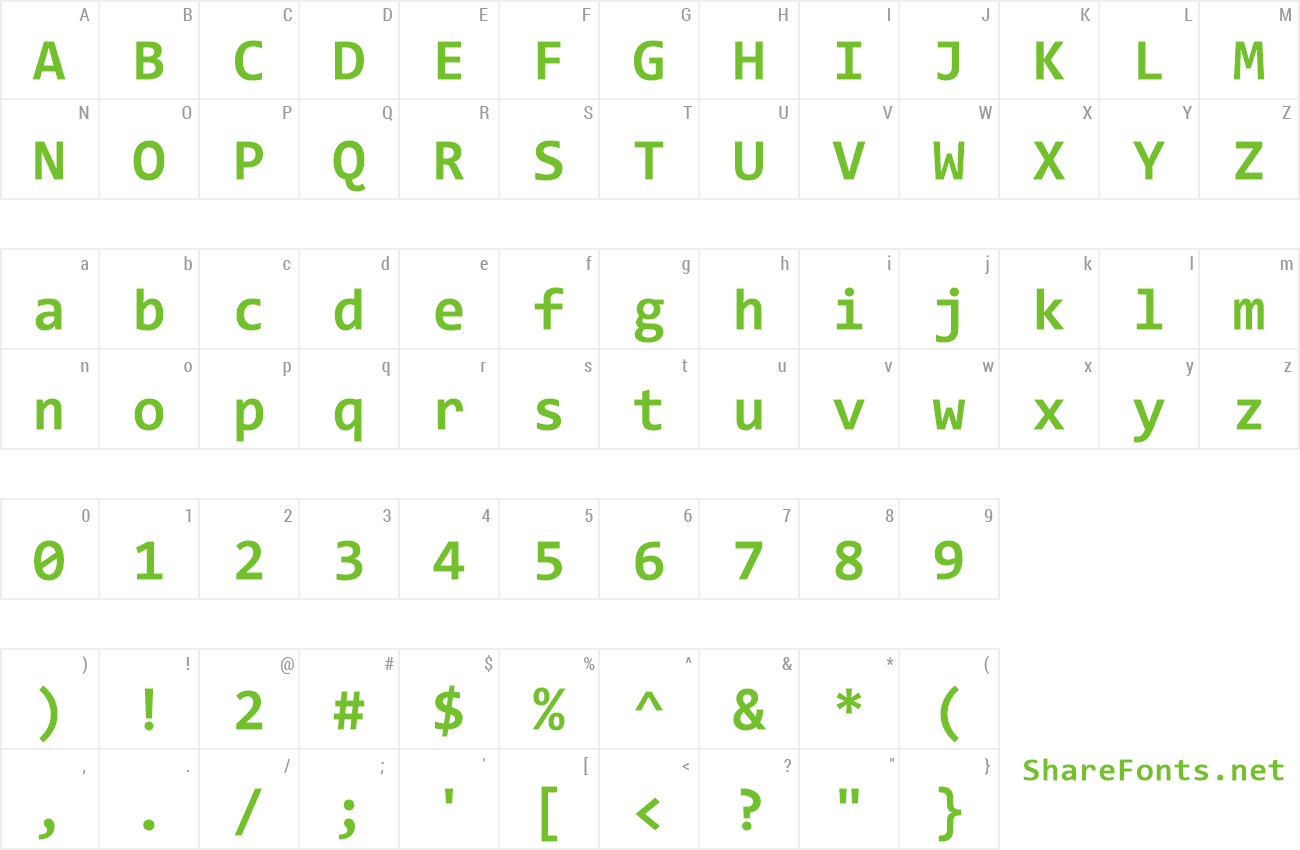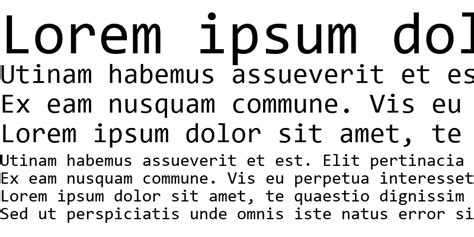
Consolas Font Download - Consolas is aimed for use in programming environments and other circumstances where a monospaced font is specified. It is a part of the clear type font collection, a suite of fonts that take advantage of. Web consolas font free. It is a part of the clear type font collection, a suite of fonts that take advantage of. Web consolas is aimed for use in programming environments and other circumstances where a monospaced font is specified. Web consolas is a monospaced typeface, designed by luc (as) de groot. All characters have the same width, like old. This is a monospaced sans serif font that was designed and released by luc (as) de. Web consolas is a monospaced typeface, designed by luc (as) de groot.
Web consolas is a monospaced typeface, designed by luc (as) de groot. This is a monospaced sans serif font that was designed and released by luc (as) de. It is a part of the clear type font collection, a suite of fonts that take advantage of. Consolas is aimed for use in programming environments and other circumstances where a monospaced font is specified. It is a part of the clear type font collection, a suite of fonts that take advantage of. All characters have the same width, like old. Web consolas font free. Web consolas is a monospaced typeface, designed by luc (as) de groot. Web consolas is aimed for use in programming environments and other circumstances where a monospaced font is specified.
Web consolas is a monospaced typeface, designed by luc (as) de groot. Web consolas is a monospaced typeface, designed by luc (as) de groot. This is a monospaced sans serif font that was designed and released by luc (as) de. All characters have the same width, like old. Consolas is aimed for use in programming environments and other circumstances where a monospaced font is specified. Web consolas font free. Web consolas is aimed for use in programming environments and other circumstances where a monospaced font is specified. It is a part of the clear type font collection, a suite of fonts that take advantage of. It is a part of the clear type font collection, a suite of fonts that take advantage of.
All characters have the same width, like old. Web consolas is aimed for use in programming environments and other circumstances where a monospaced font is specified. This is a monospaced sans serif font that was designed and released by luc (as) de. Web consolas font free. It is a part of the clear type font collection, a suite of fonts.
It is a part of the clear type font collection, a suite of fonts that take advantage of. Consolas is aimed for use in programming environments and other circumstances where a monospaced font is specified. Web consolas font free. Web consolas is aimed for use in programming environments and other circumstances where a monospaced font is specified. Web consolas is.
It is a part of the clear type font collection, a suite of fonts that take advantage of. Consolas is aimed for use in programming environments and other circumstances where a monospaced font is specified. Web consolas font free. Web consolas is a monospaced typeface, designed by luc (as) de groot. This is a monospaced sans serif font that was.
Web consolas is aimed for use in programming environments and other circumstances where a monospaced font is specified. It is a part of the clear type font collection, a suite of fonts that take advantage of. Web consolas font free. It is a part of the clear type font collection, a suite of fonts that take advantage of. This is.
Web consolas is a monospaced typeface, designed by luc (as) de groot. Web consolas is a monospaced typeface, designed by luc (as) de groot. It is a part of the clear type font collection, a suite of fonts that take advantage of. It is a part of the clear type font collection, a suite of fonts that take advantage of..
Consolas Font Download For Free, View Sample Text, Rating And More On
Web consolas is aimed for use in programming environments and other circumstances where a monospaced font is specified. Web consolas font free. Web consolas is a monospaced typeface, designed by luc (as) de groot. It is a part of the clear type font collection, a suite of fonts that take advantage of. This is a monospaced sans serif font that.
Consolas Font Free Dafont Free
Web consolas is a monospaced typeface, designed by luc (as) de groot. Consolas is aimed for use in programming environments and other circumstances where a monospaced font is specified. Web consolas font free. It is a part of the clear type font collection, a suite of fonts that take advantage of. All characters have the same width, like old.
Consolas Font Free Download 4 Styles FontsHero
Web consolas is aimed for use in programming environments and other circumstances where a monospaced font is specified. This is a monospaced sans serif font that was designed and released by luc (as) de. Consolas is aimed for use in programming environments and other circumstances where a monospaced font is specified. Web consolas is a monospaced typeface, designed by luc.
Consolas Font Free Dafont Free
This is a monospaced sans serif font that was designed and released by luc (as) de. Web consolas is aimed for use in programming environments and other circumstances where a monospaced font is specified. Web consolas font free. Consolas is aimed for use in programming environments and other circumstances where a monospaced font is specified. It is a part of.
Web Consolas Is A Monospaced Typeface, Designed By Luc (As) De Groot.
Consolas is aimed for use in programming environments and other circumstances where a monospaced font is specified. All characters have the same width, like old. It is a part of the clear type font collection, a suite of fonts that take advantage of.